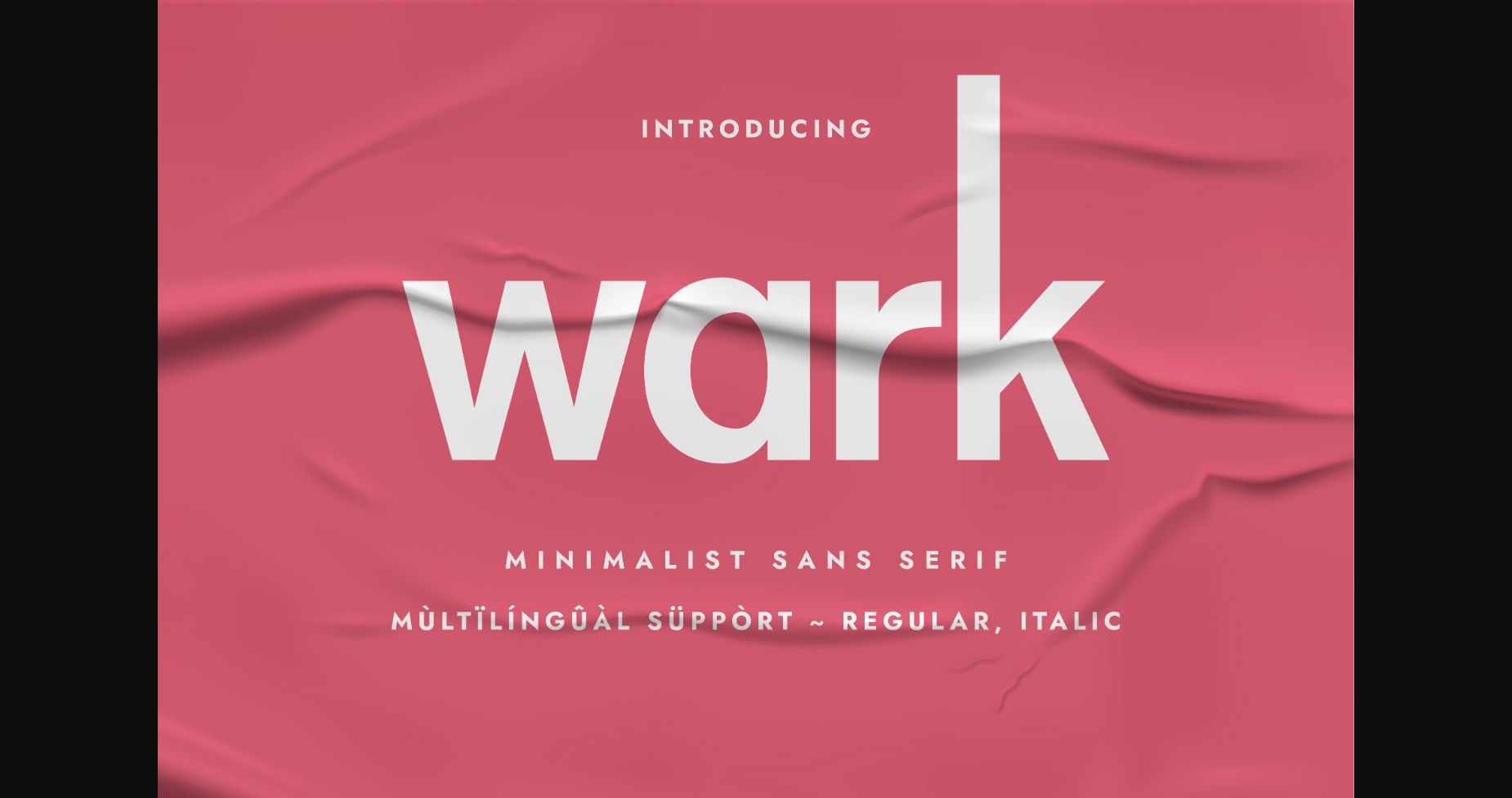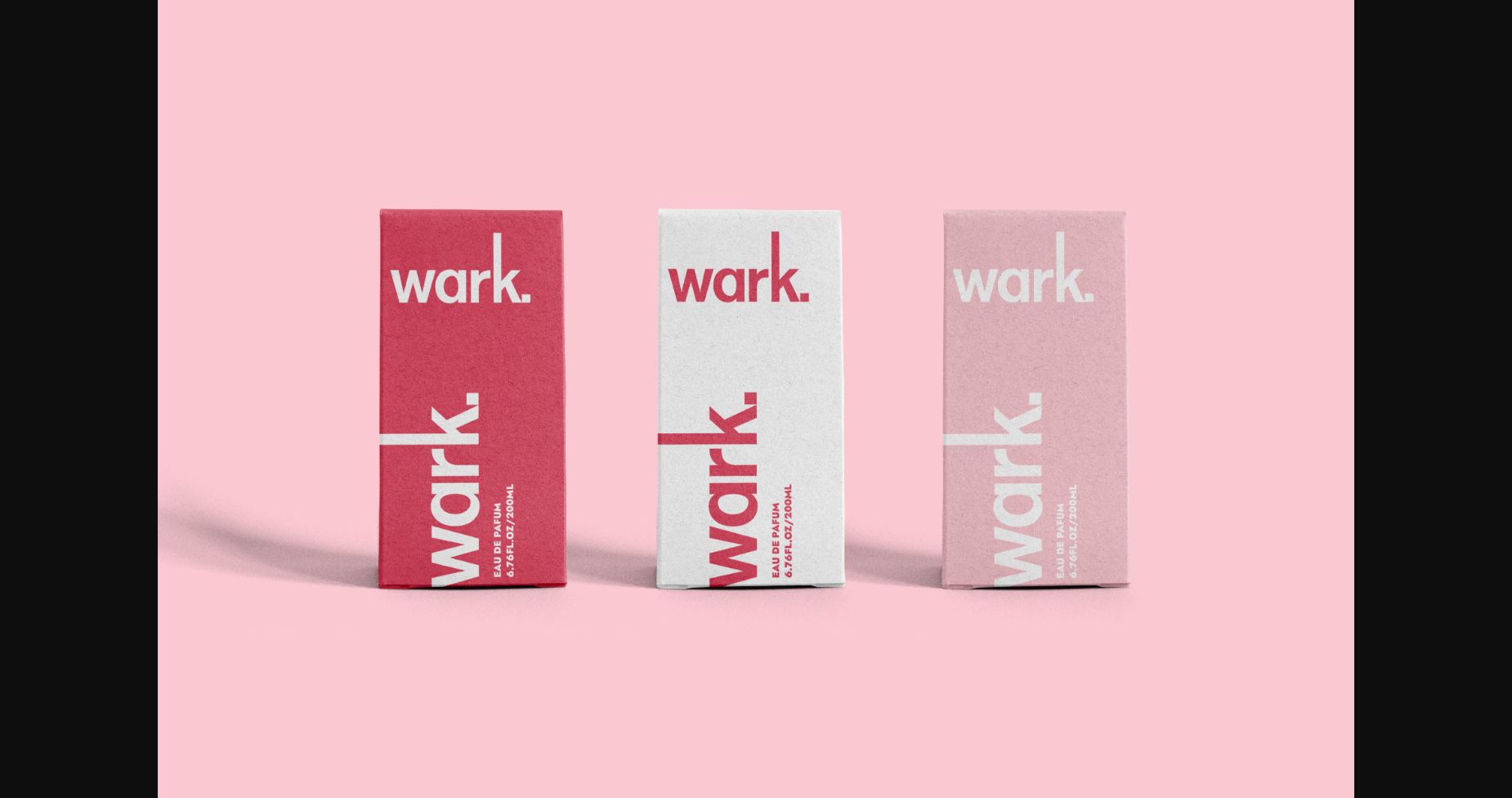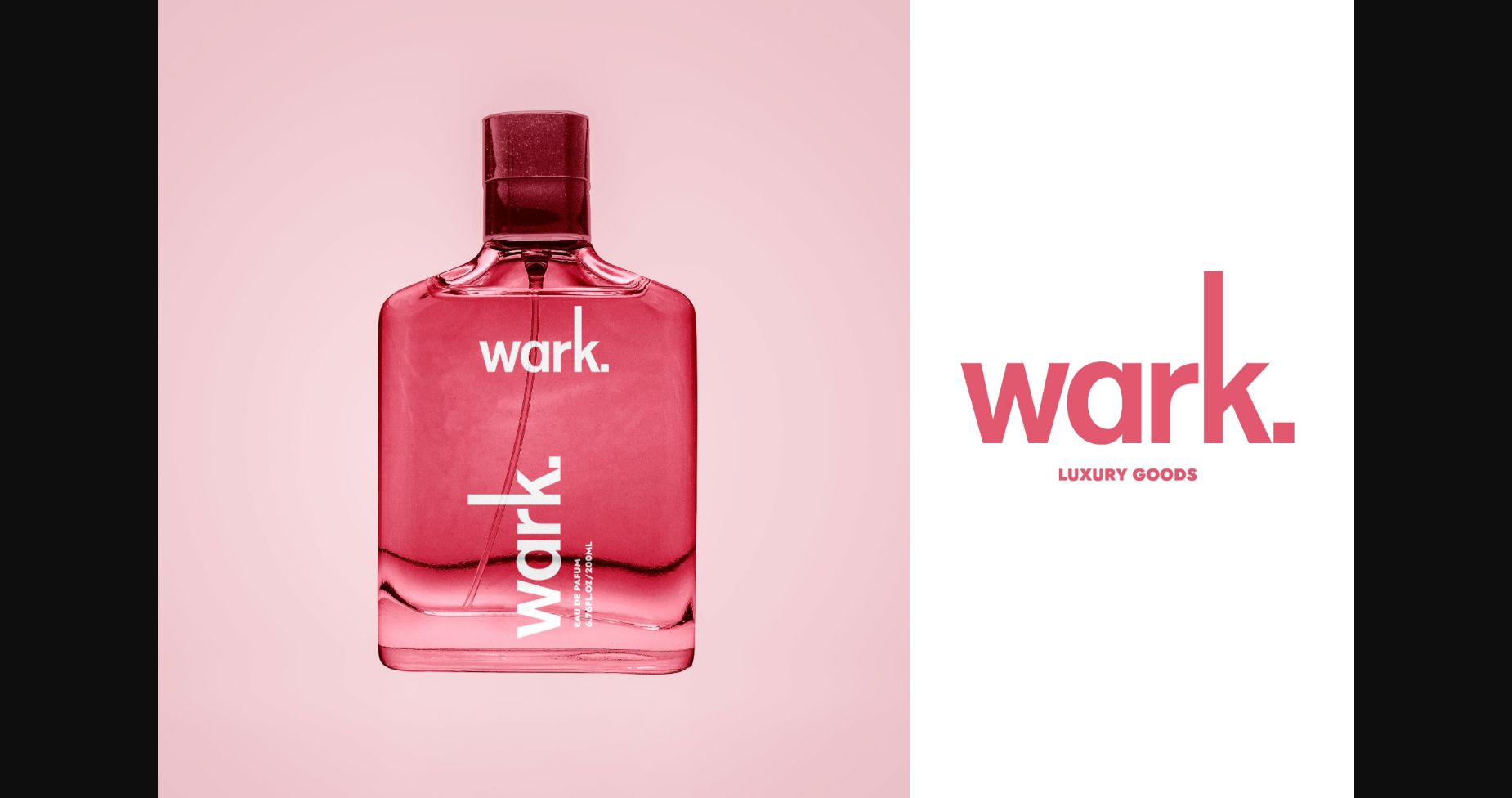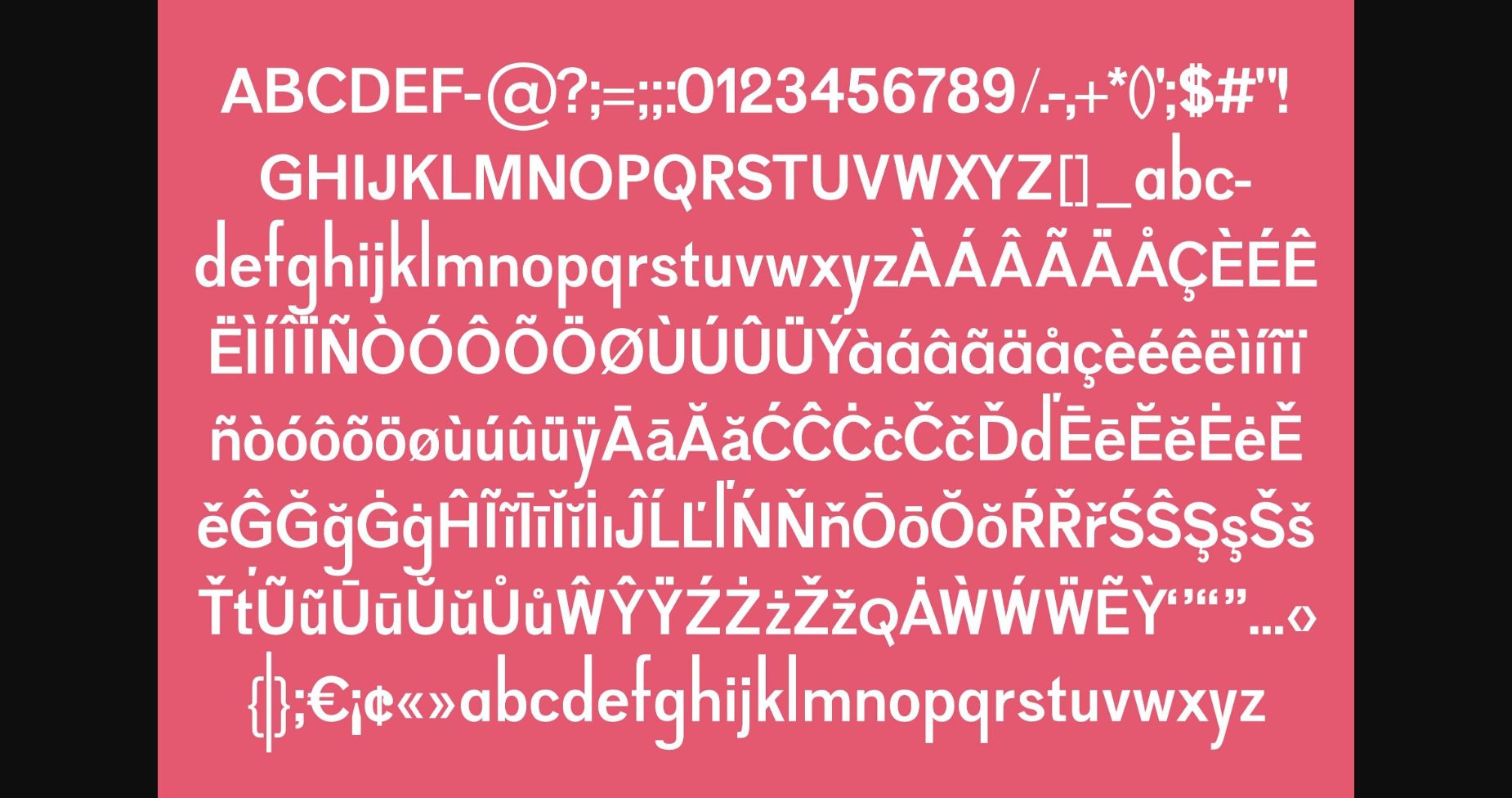
Wark Font
About Wark Font
Wark is a clean, modern, and revolutionary sans serif font perfect for any design you wish to create! Use it with confidence on your creative projects, and you will be amazed by its incredible results.